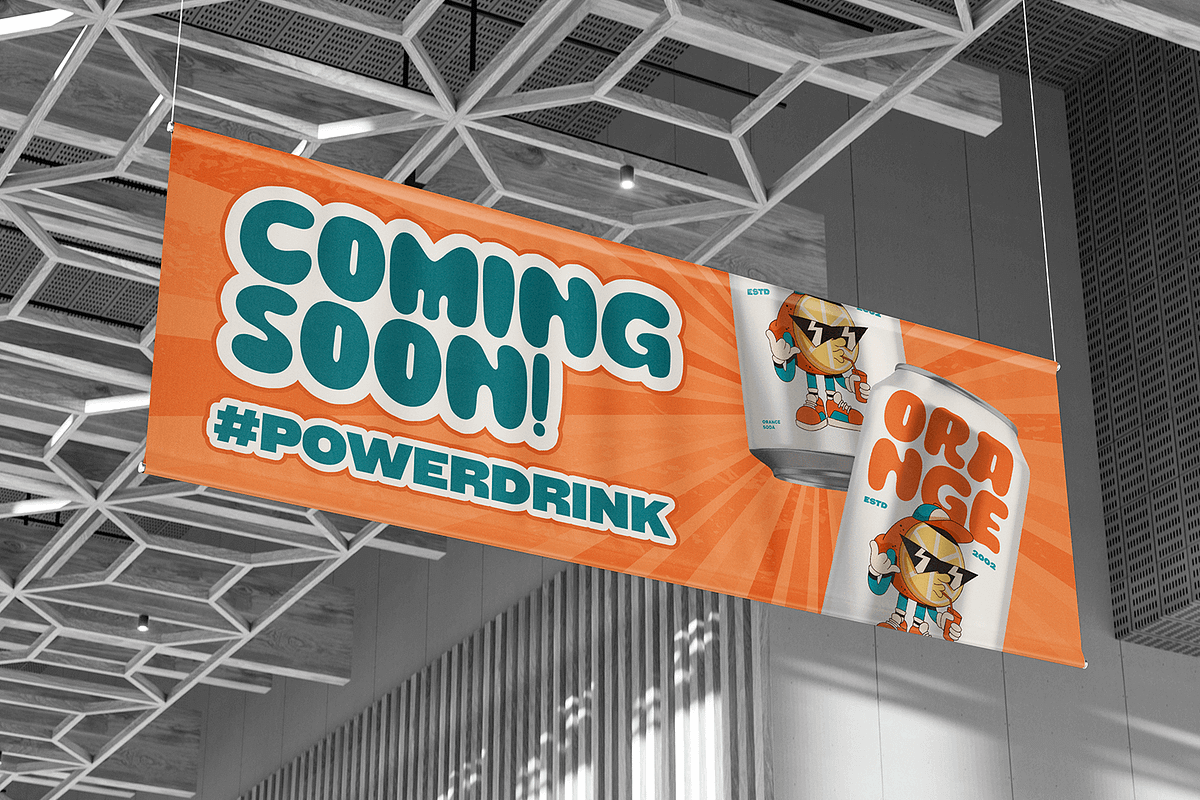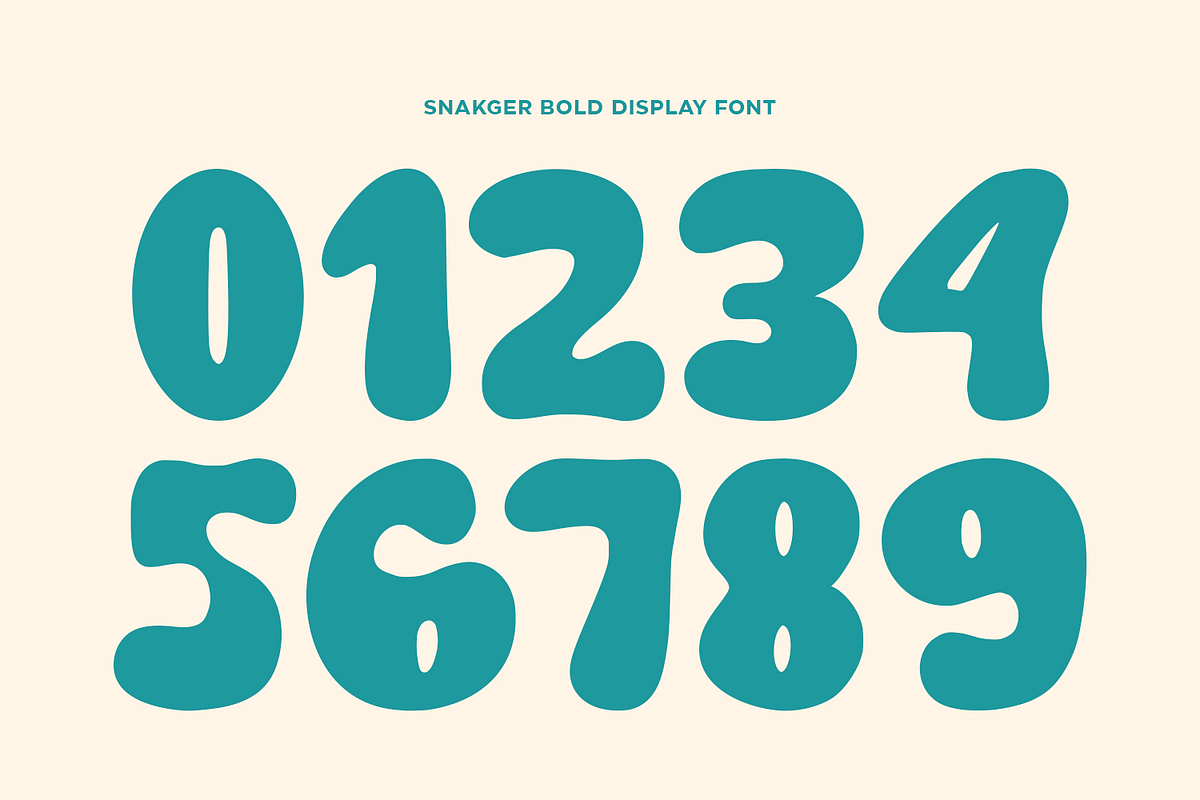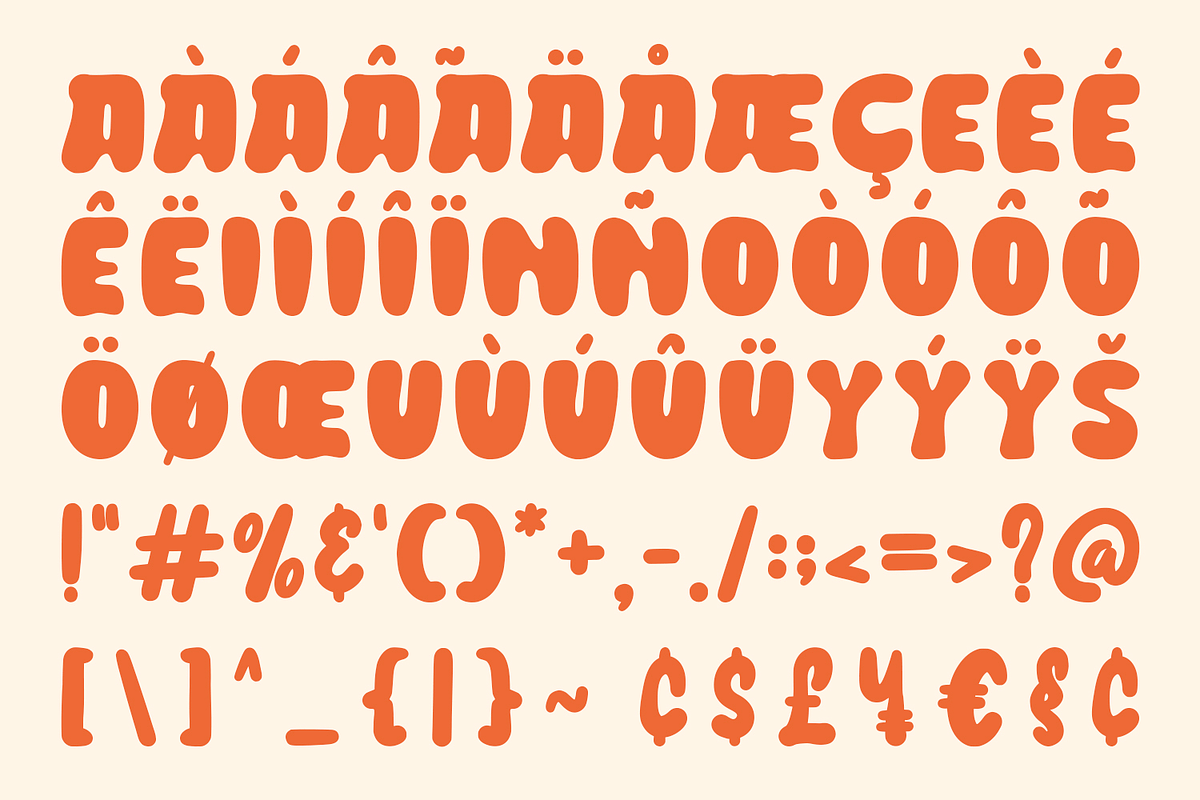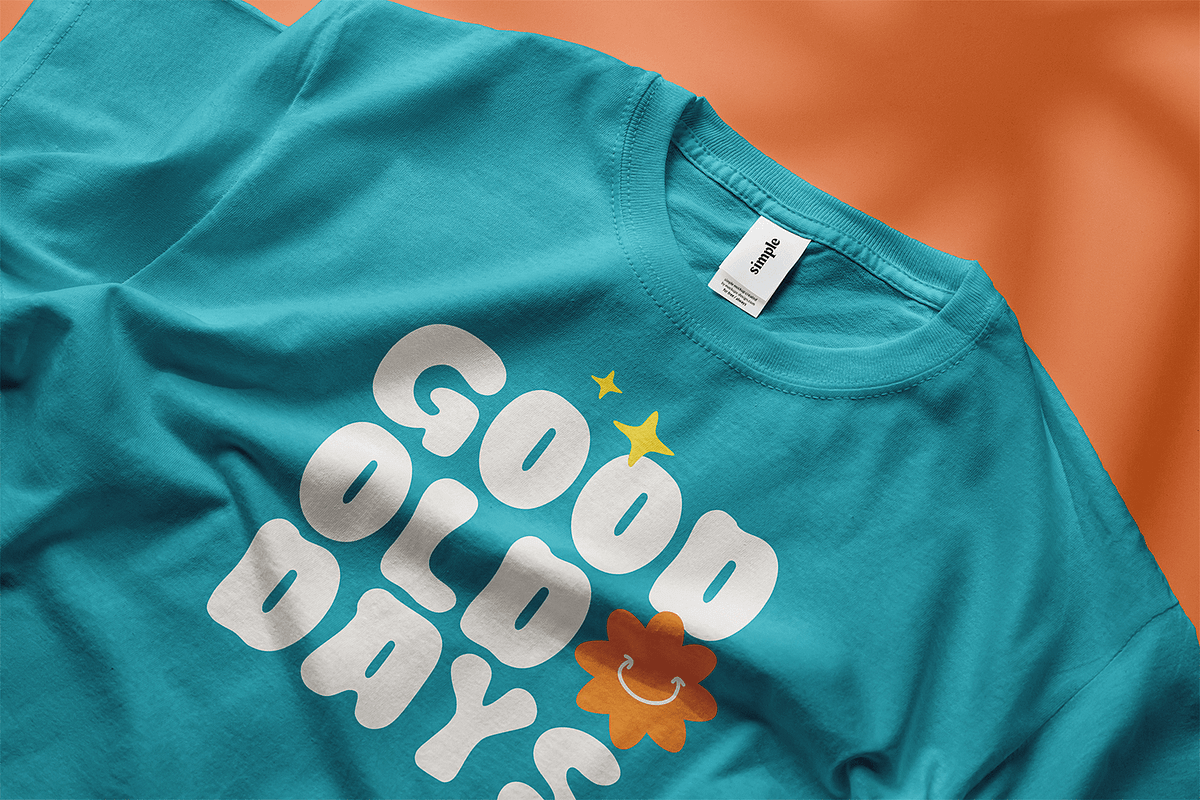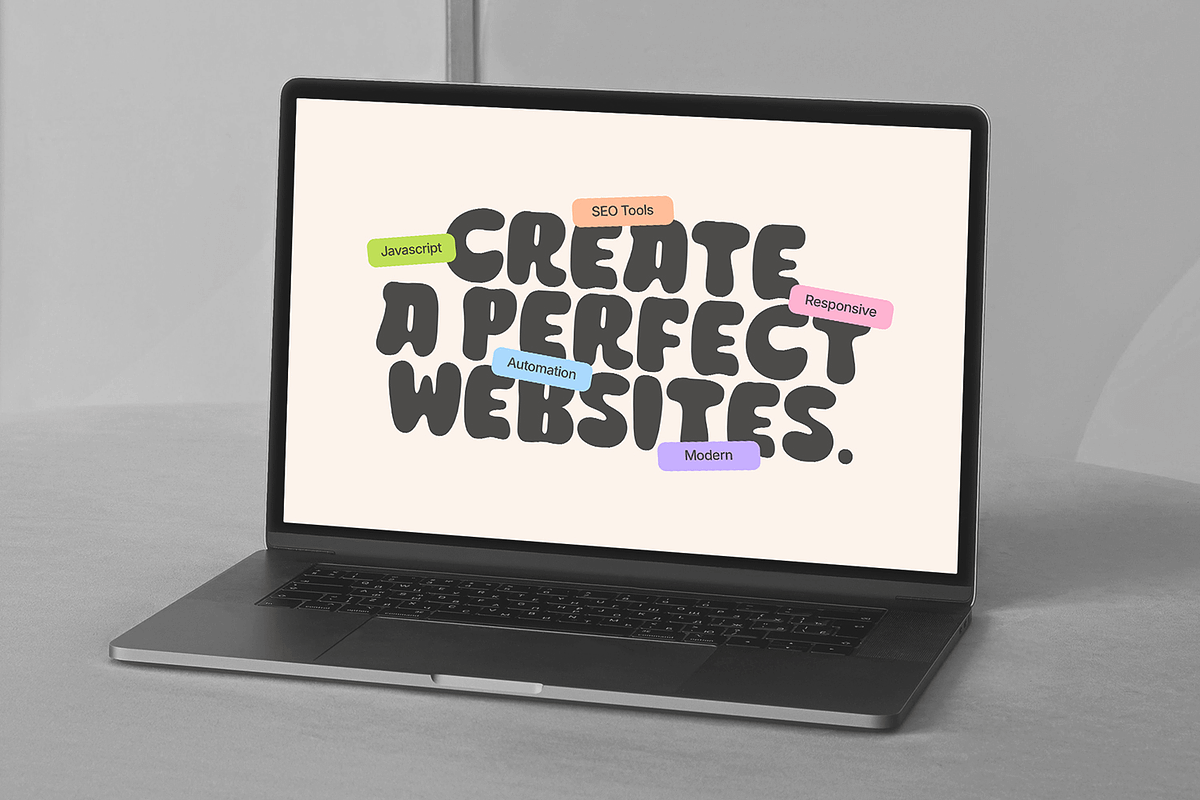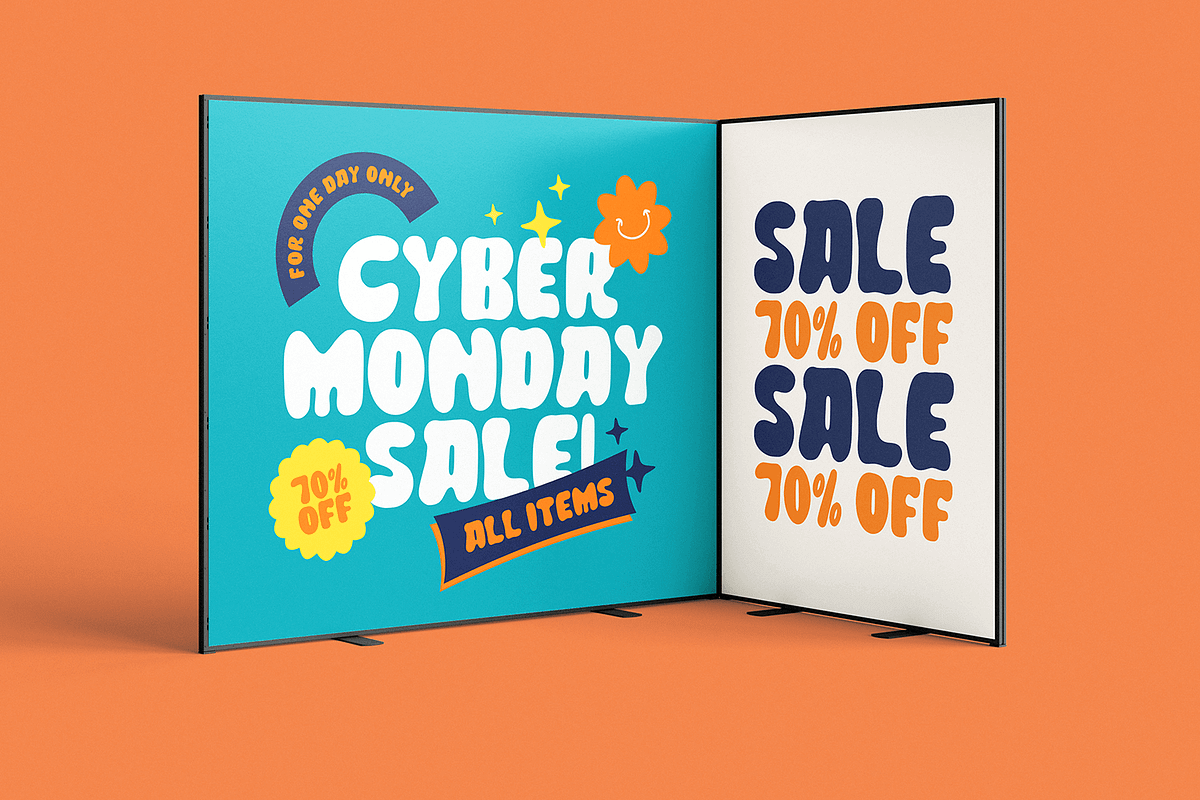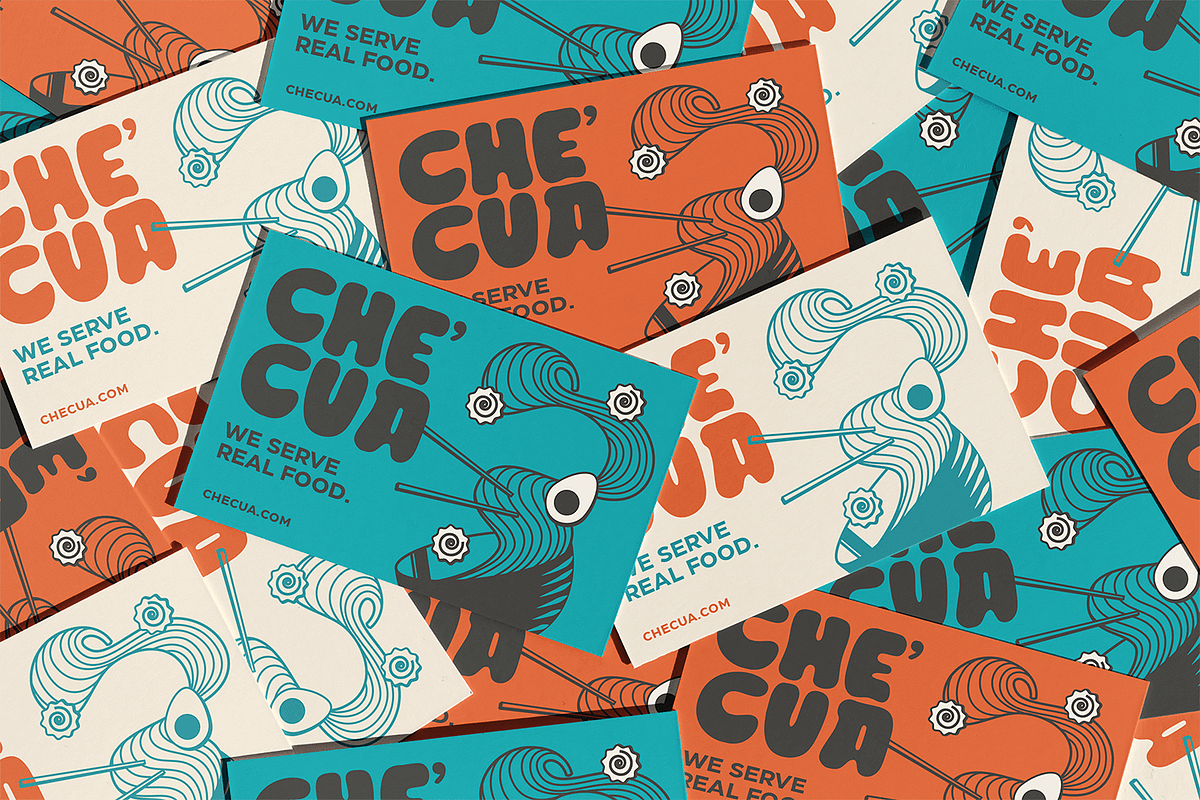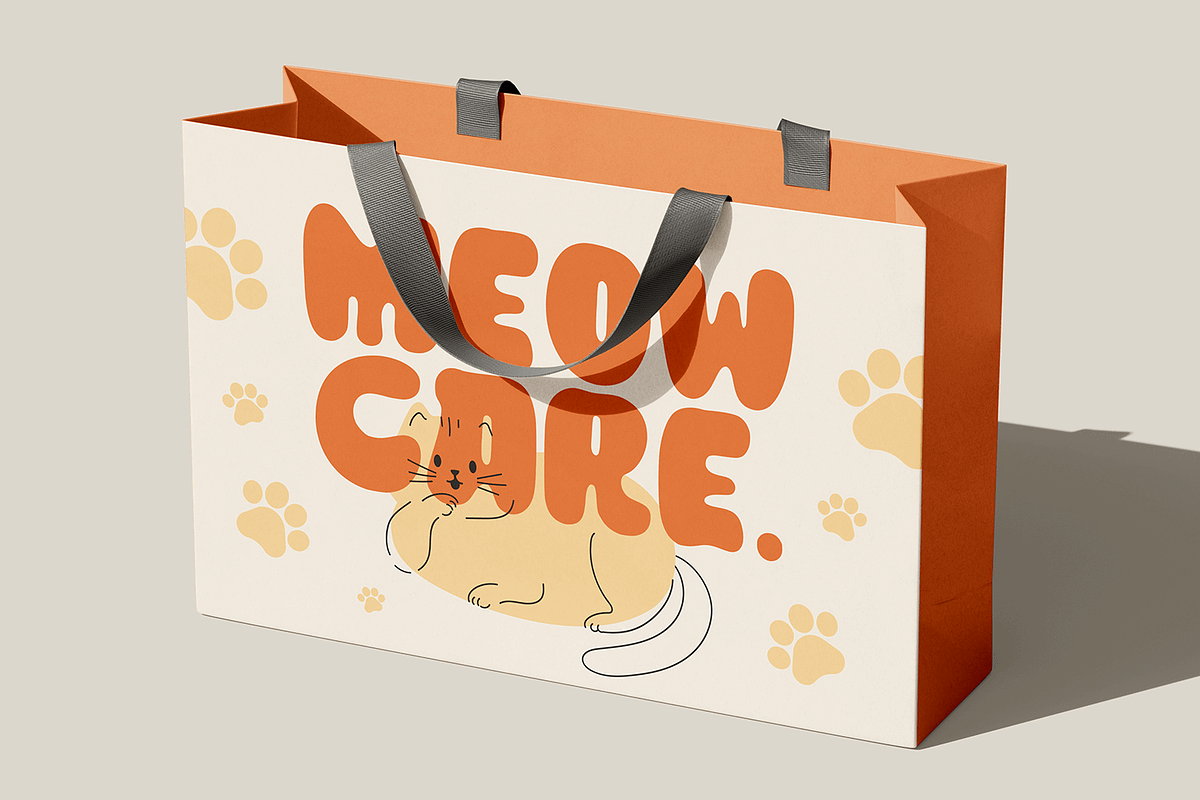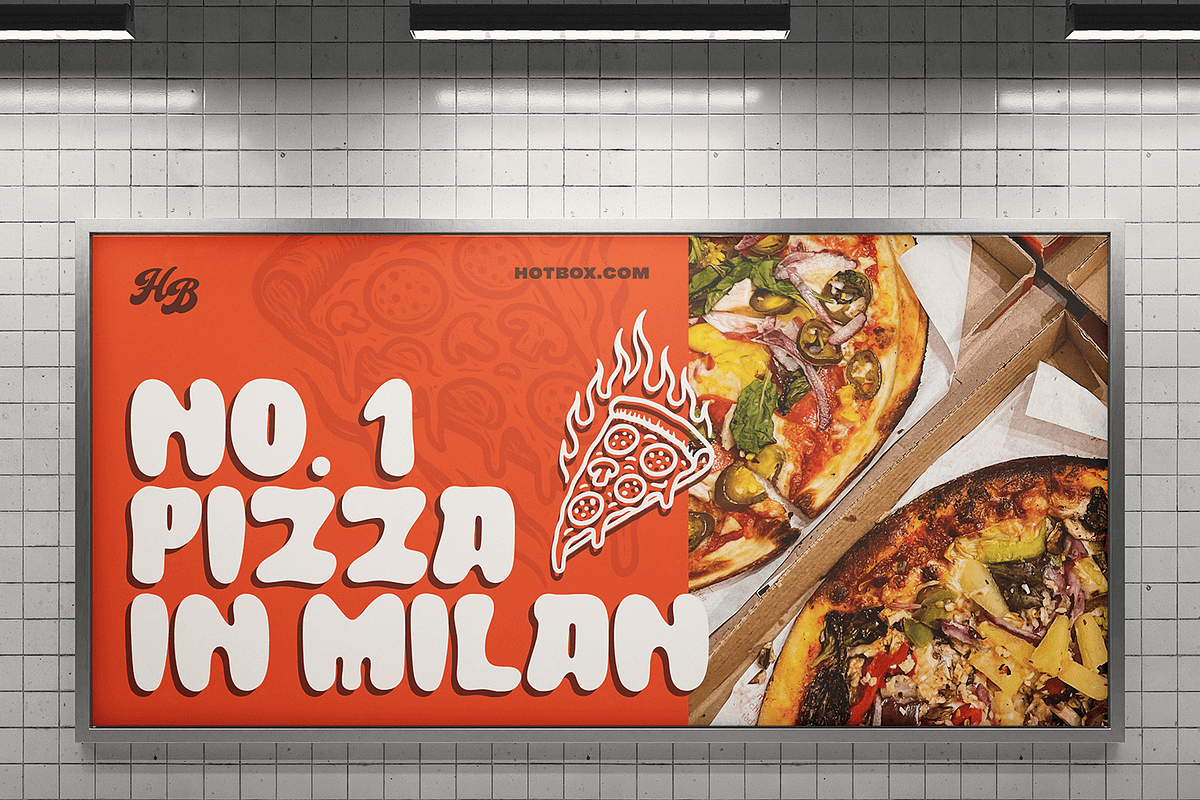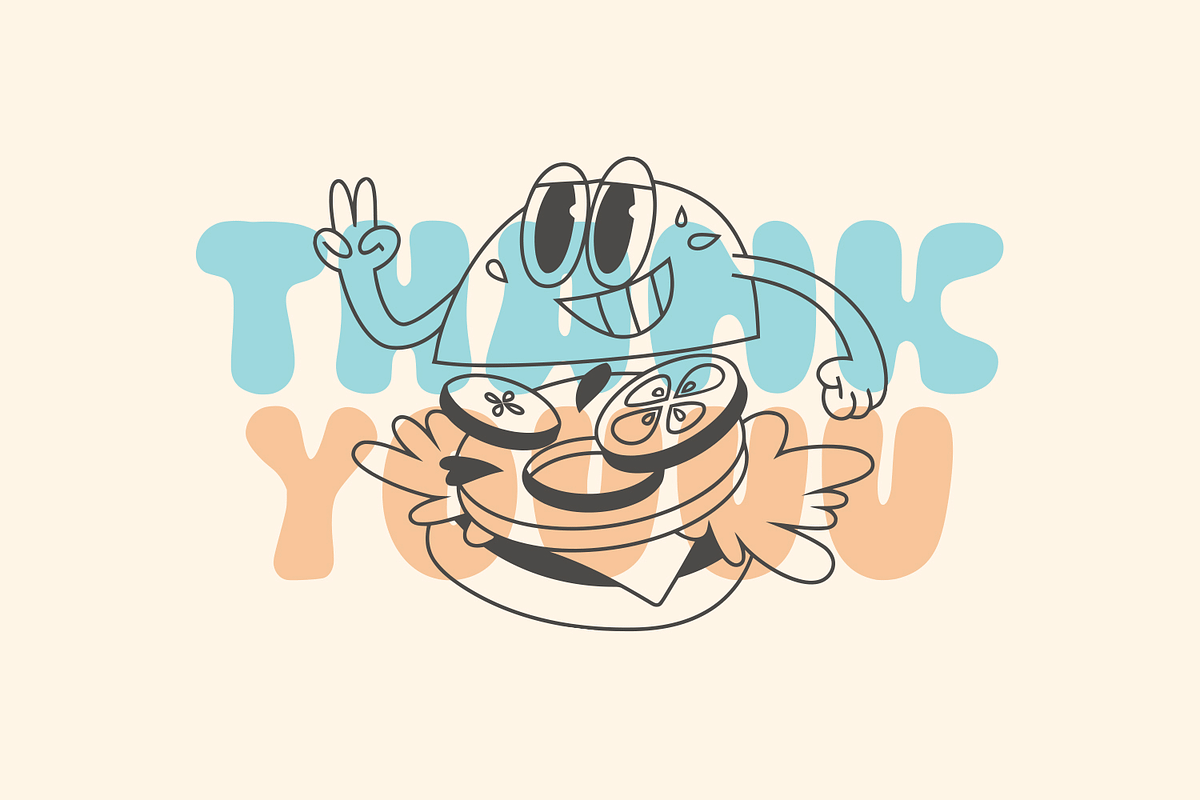
Snakger - Bold Display Font
Introducing Snakger - Bold Display Font
Snakger Bold is a fun and groovy display font with chunky shapes and playful energy. Inspired by retro bubble lettering and funky 70s vibes, Snakger brings bold personality and happiness to every design. Its rounded edges and soft forms make it stand out while staying friendly and approachable.
Perfect for logos, packaging, posters, and kids’ illustrations, Snakger Bold is the ideal choice for creative projects that need a cheerful and energetic look. Equipped with 200+ glyphs, ligatures, alternates, and multilingual support, this font is ready to make your designs pop with retro fun
- All Caps